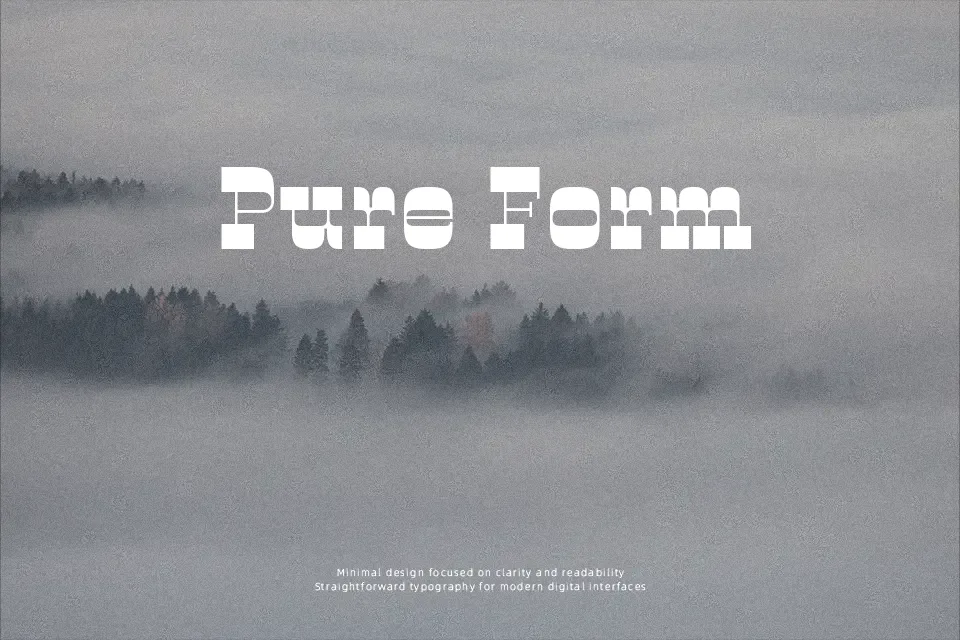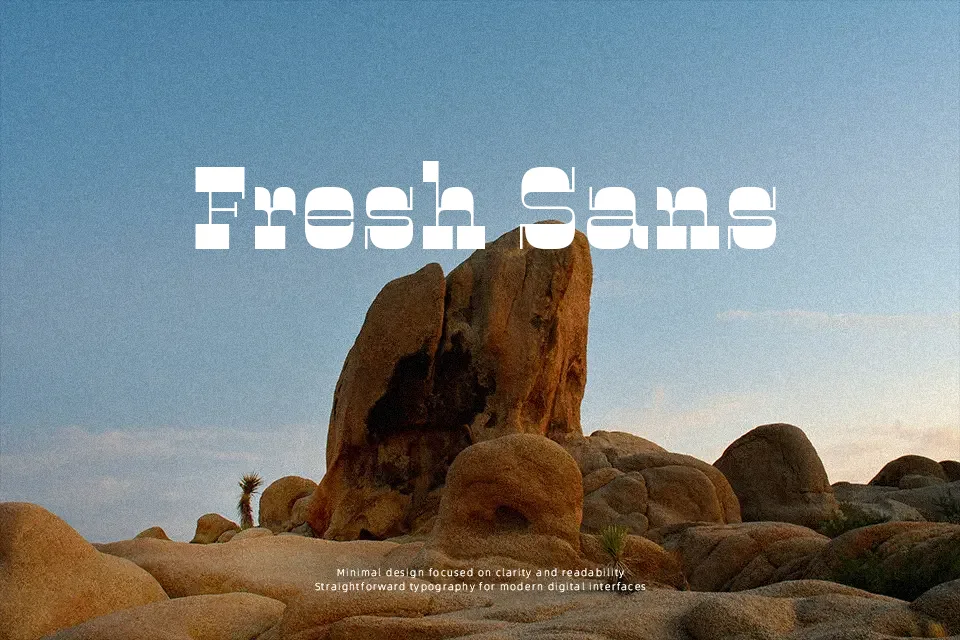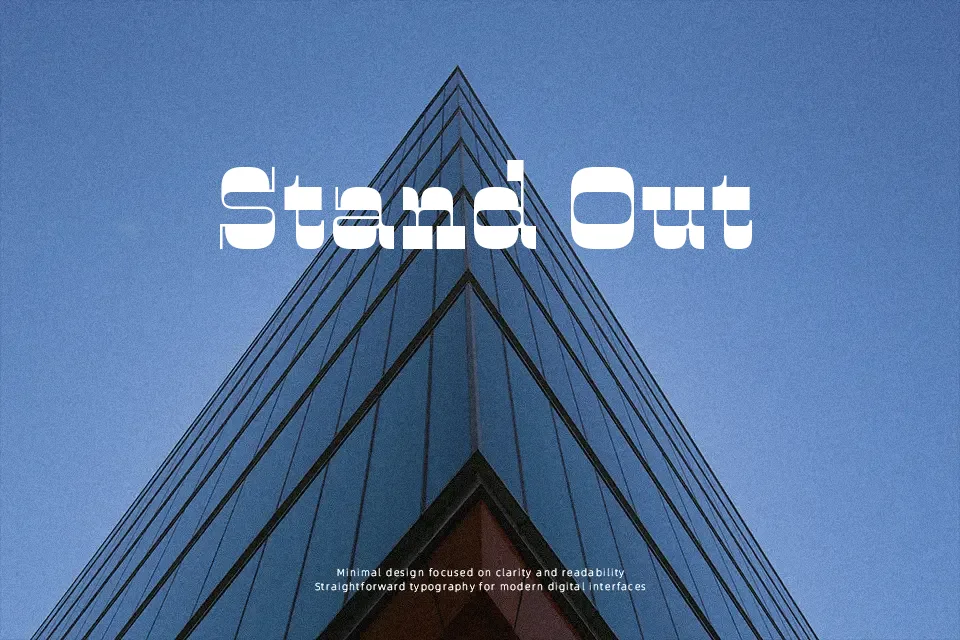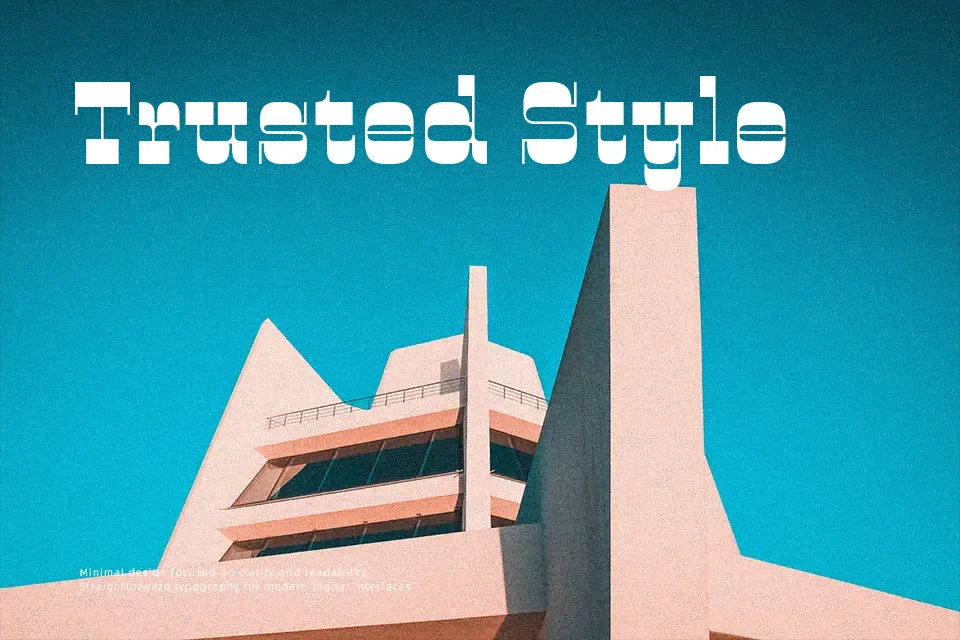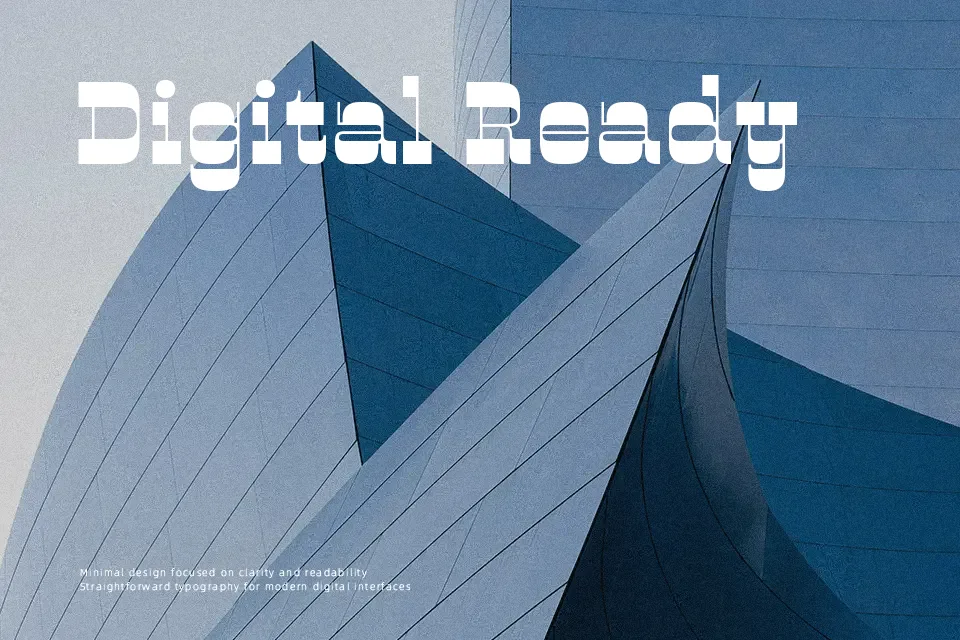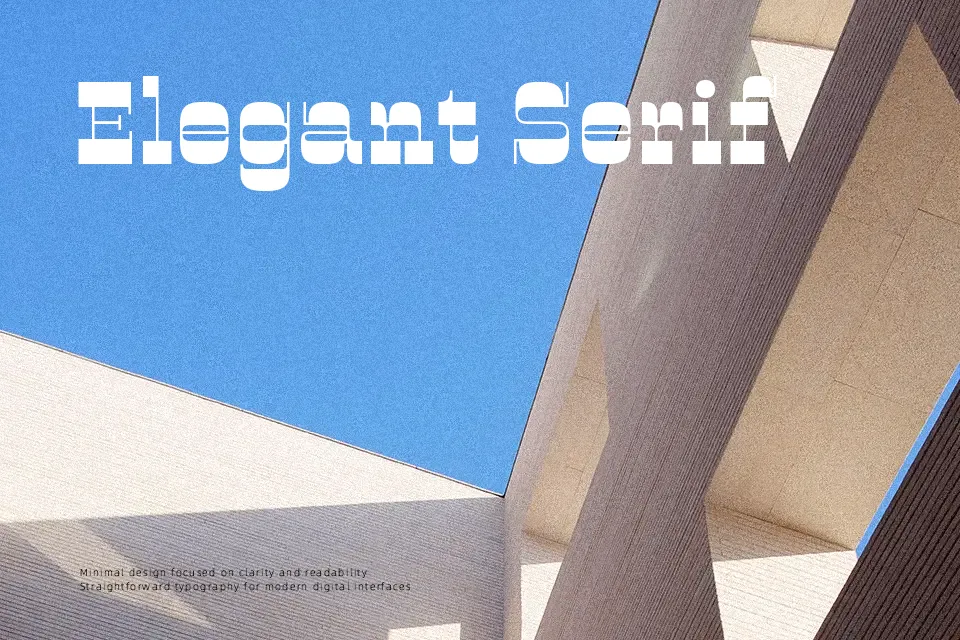
Steam Base Font
Characterized by pronounced inverted weight distribution, Steam Base Font pairs thick horizontal serifs with slender vertical stems to create an unmistakable vintage profile. The uppercase glyphs exhibit solid structural presence, supported by compact tracking and wide crossbars that maintain strong silhouette recognition. In practical application, the typeface excels across bold promotional graphics, festival banners, and artisan merchandise labels where visual prominence is paramount. However, the exaggerated contrast and tight interior counters significantly hinder legibility in body text or small captions. For optimal results, reserve these expressive letterforms for headline hierarchies where generous sizing allows the intricate wood-type character to display clearly.
Best For: music festival banners,craft beverage packaging,western restaurant signage,apparel graphics
Not Ideal For: continuous body paragraphs,mobile interface text,legal documents,small caption copy
Perfect for advertising, headline, and logo, with a bold and decorative style.